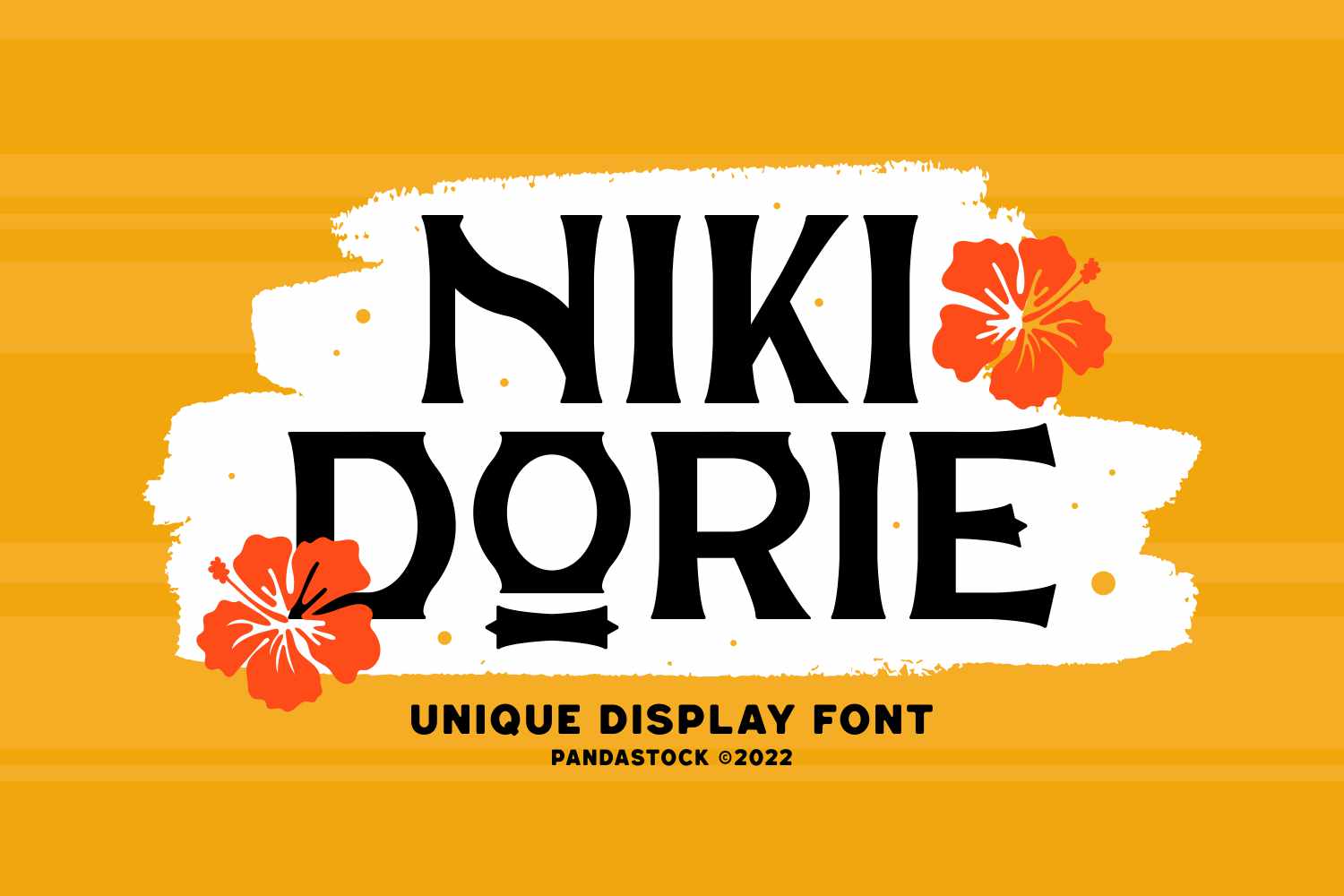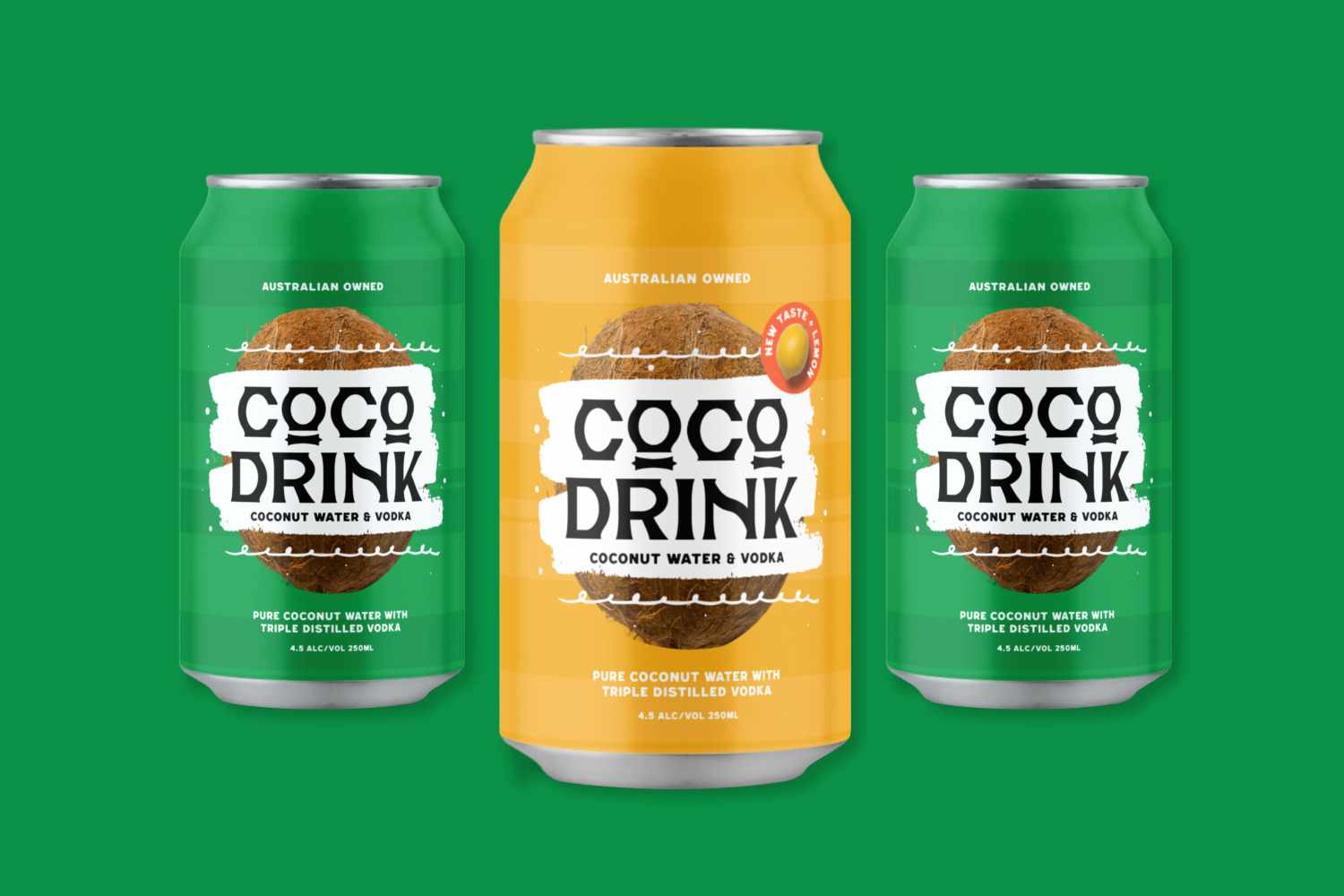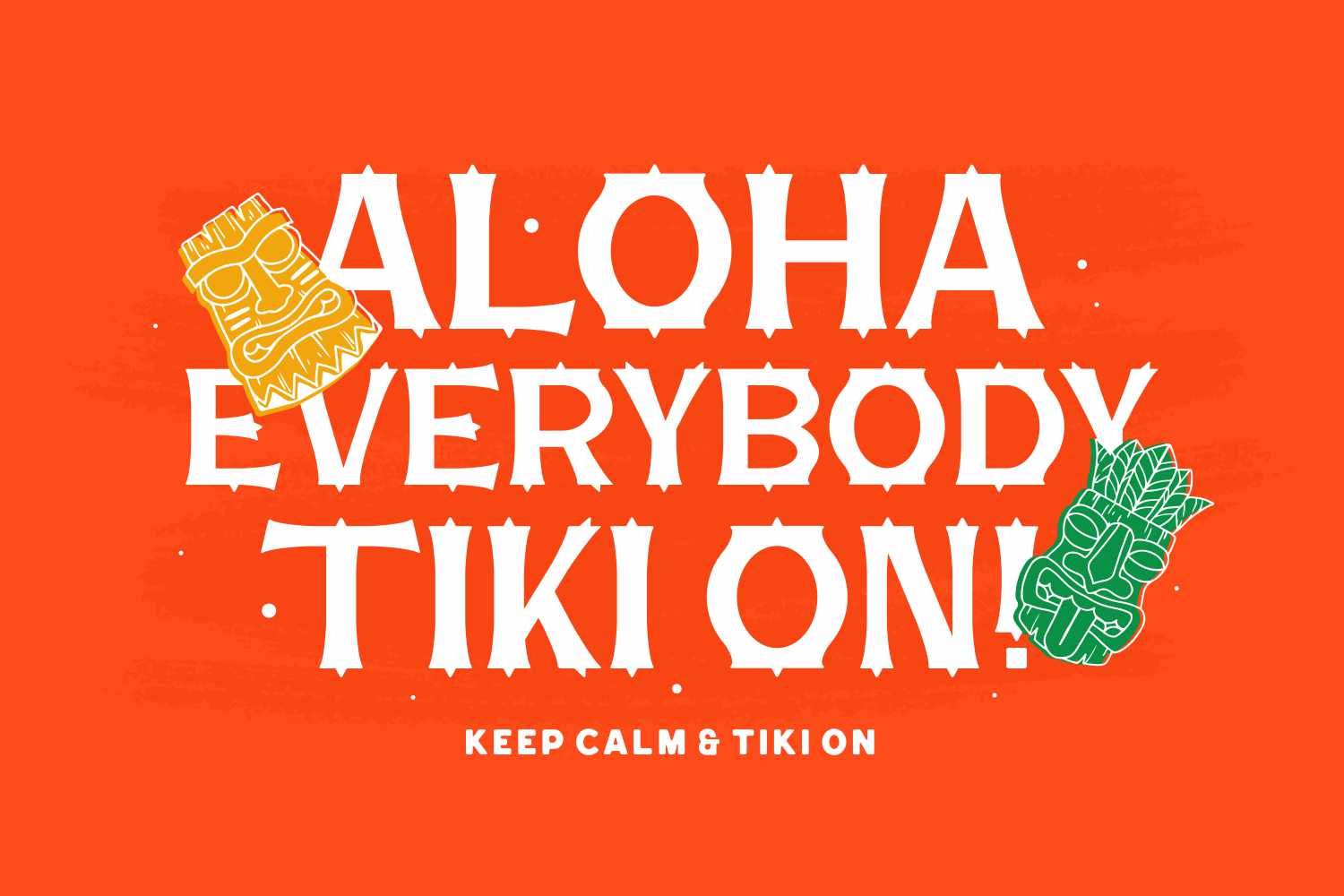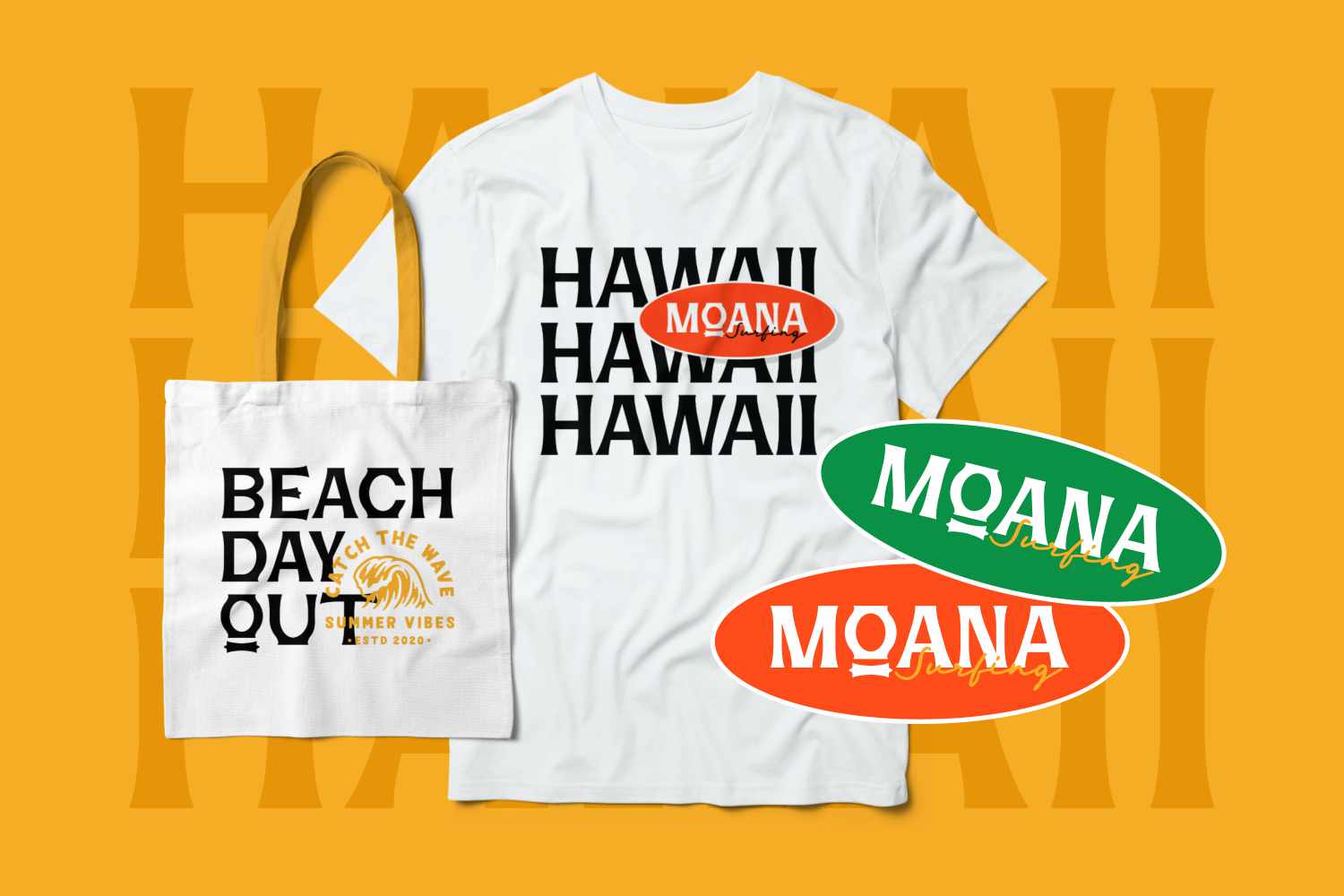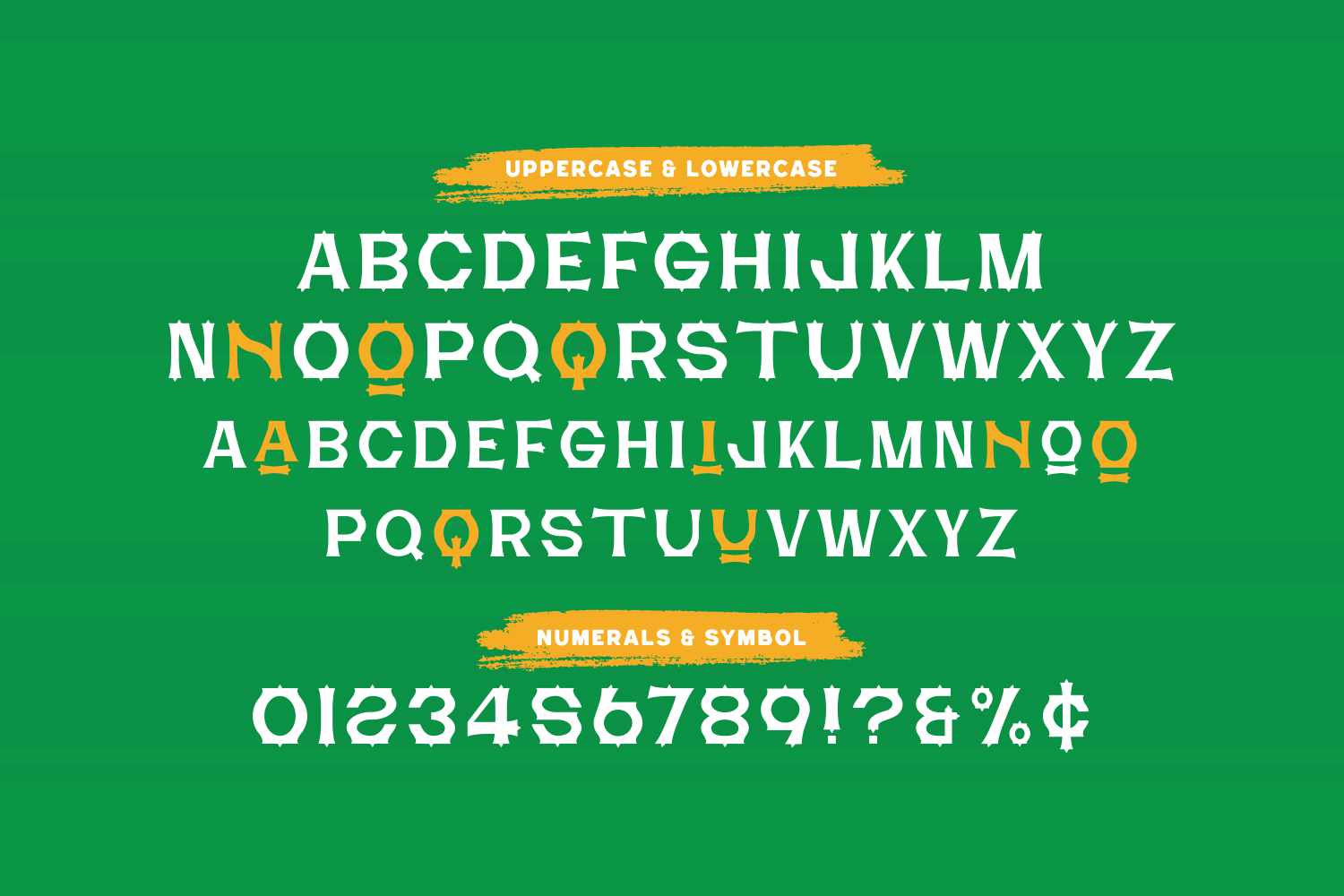
Niki Dorie
Niki Dorie is a playful and unique display font inspired by tropical vibes, bold shapes, and island culture. Its distinctive letterforms with quirky cuts and vibrant personality make it perfect for designs that need an energetic and fun touch. With its eye-catching style, Niki Dorie embodies a carefree spirit, making it a great fit for summer-themed projects, beach events, and festive branding.
From packaging, logos, posters, and t-shirts to social media graphics, Niki Dorie brings an authentic tropical atmosphere to your designs. Whether you’re creating branding for beverages, vacation promotions, or lifestyle merchandise, this font adds a refreshing and adventurous character that stands out and leaves a lasting impression.